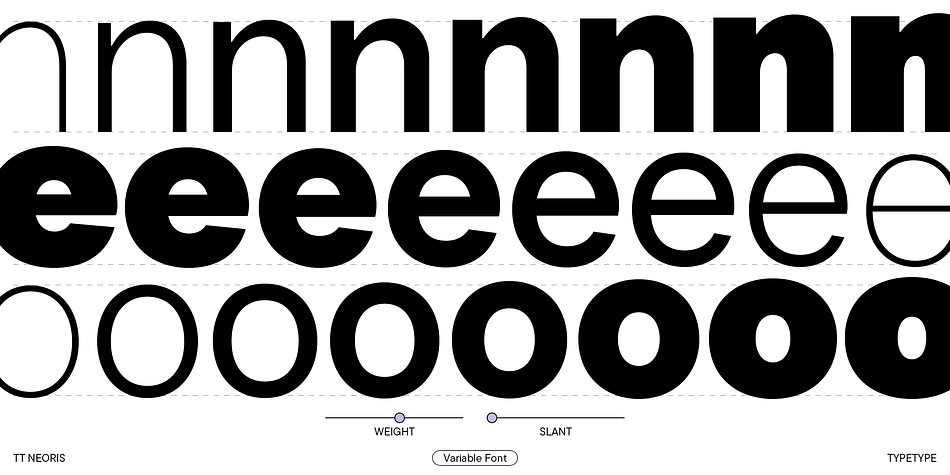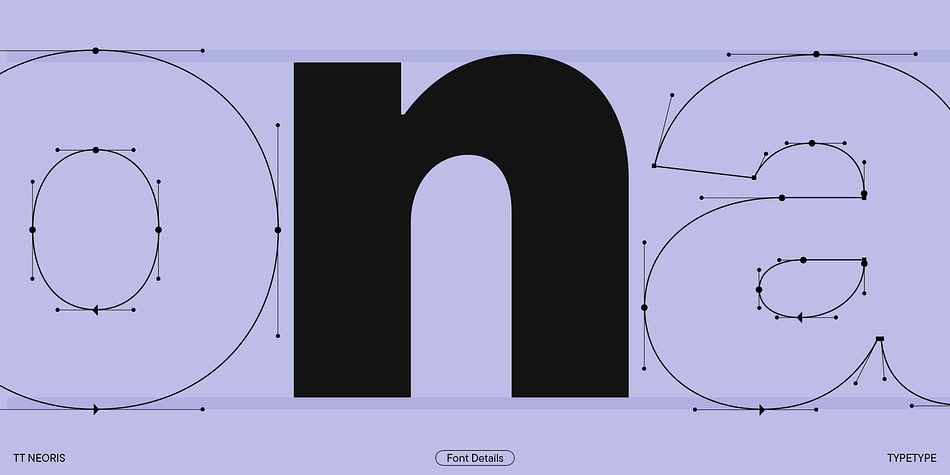
TT Neoris
Designed by Antonina Zhulkova and TypeType Team, TT Neoris is a sans serif font family. This typeface has twenty-one styles and was published by Typetype.
The future of Neo-Grotesques is now! Introducing TT Neoris—a new ambitious font from TypeType.
TT Neoris is an elegant Neo-Grotesque with unlimited potential and a font that encompasses all modern requirements and user desires. An ample character set, support for more than 230 languages, and a large set of OpenType features—this font has everything you need for your design (and even more)!
TT Neoris has been in development for two and a half years. To begin with, we carried out extensive research, analyzing the market and asking users to share their wishes and preferences. Then, using the information we collected, we defined the task for ourselves—to create a simple and convenient Neo-Grotesque that would have neutral features and be distinctive and fresh at the same time.
So, this is what TT Neoris turned out to be—it is technological, functional, all-purpose, and ultra-modern. And also highly versatile and adaptable. Due to its huge number of features, this font can easily replace multiple others! You can dramatically transform the mood of TT Neoris so it becomes a powerful tool for your projects.
We focused closely on details to bring the font closer to perfection. Cyrillic italics were made visually different from the Latin ones, following the traditions of Cyrillic calligraphy. We made sure that the boldest font style’s feeling was as solemn as that of the regular one. And, not to boast, we have offered a glimpse into the future of Neo-Grotesques!
TT Neoris is an ideal sans with:
● 21 font styles: 10 upright, 10 italics, and 1 variable font;
● 1832 characters in each font style, including the extended Latin and Cyrillic character sets and special symbols;
● 41 OpenType features, counting in localization features for various languages, stylistic alternates, capitals, icons, circled figures, and arrows;
● 14 stylistic sets with Soft character and Upright cursive in Latin and Cyrillic character sets;
● 230+ languages support, including all languages based on Cyrillic script with over a million speakers;
● Special condensed italics designed to create a ‘highlighting’ effect when used in specific text segments.
Begin using the Neo-Grotesque of the future today!